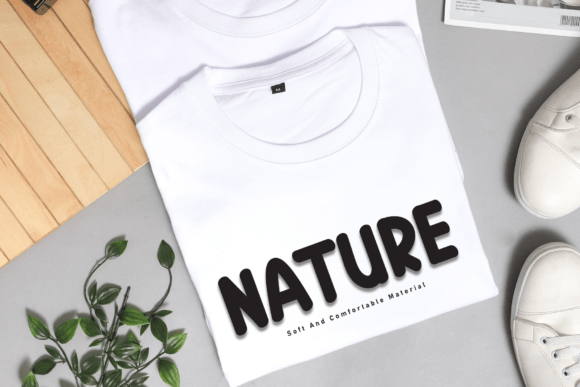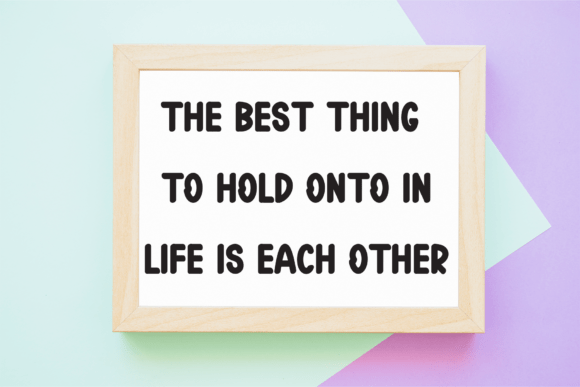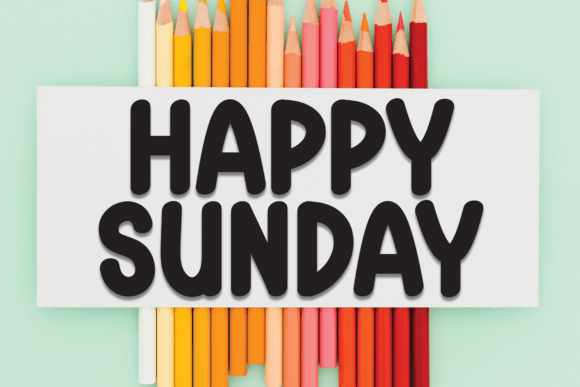
Candy Bubble Font
Immerse yourself in the charming allure of a handwritten display font that mingles sweetness with friendliness. With a delightfully cute and fun aesthetic, this font is the perfect element to lend a touch of whimsy to your wedding invitations or cards. Whether you’re creating a heartwarming note or a playful design, this font adds an endearing and enjoyable touch to every project it graces.